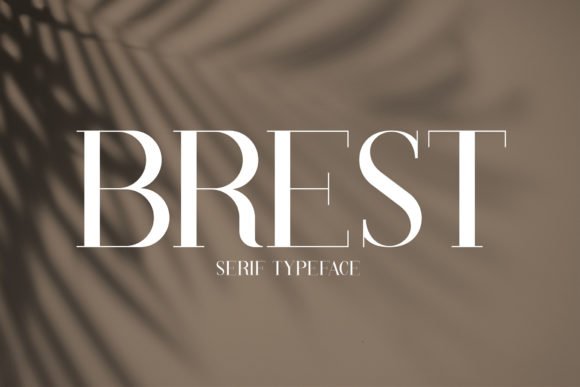
Introduction to Brest Font
Brest is a luxurious and elegant serif font.
Why Choose Brest Font?
Brest Font offers exceptional quality and versatility, making it a valuable addition to your design toolkit. Whether you’re creating for personal projects or commercial use, Brest Font delivers professional results.